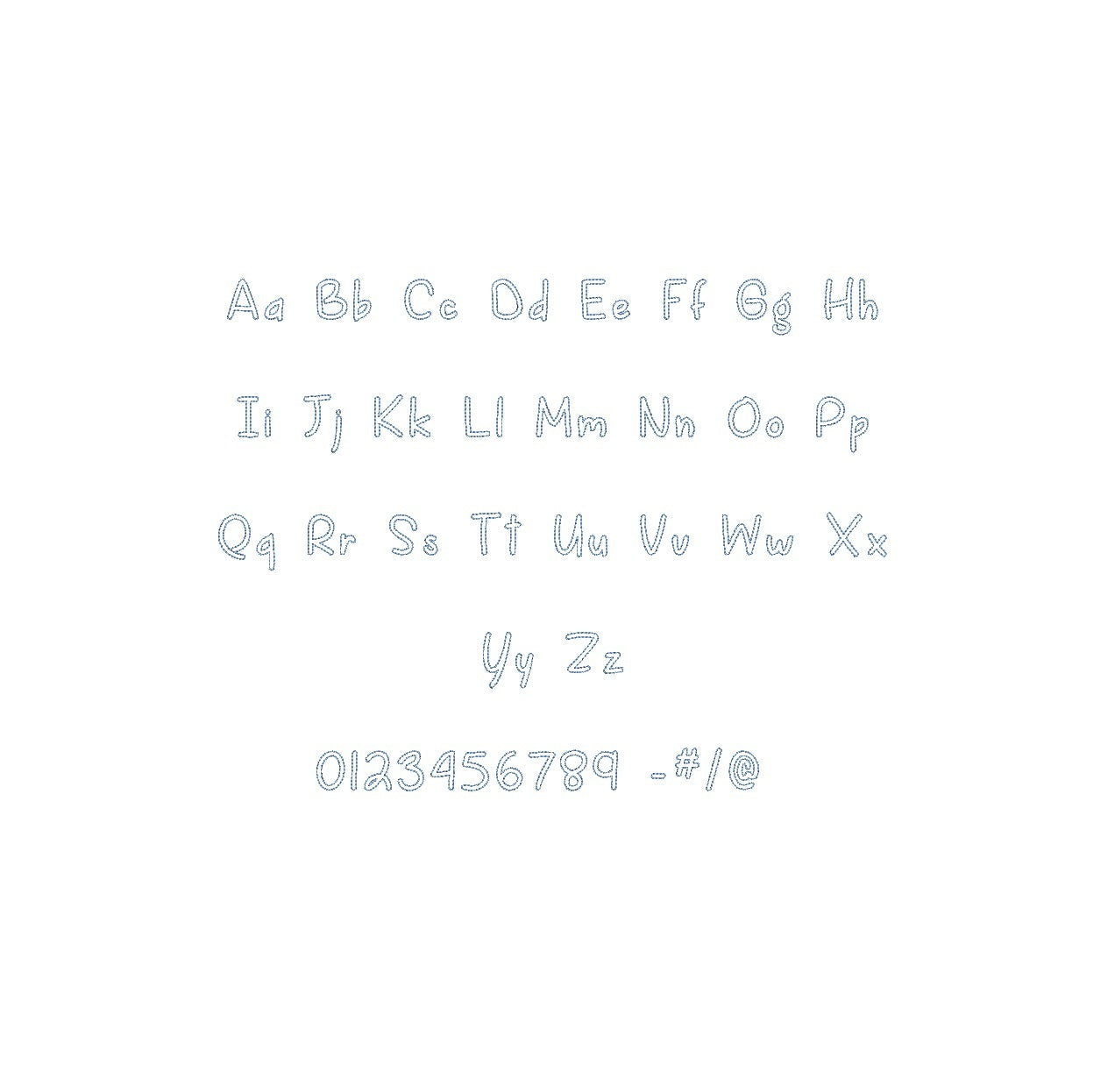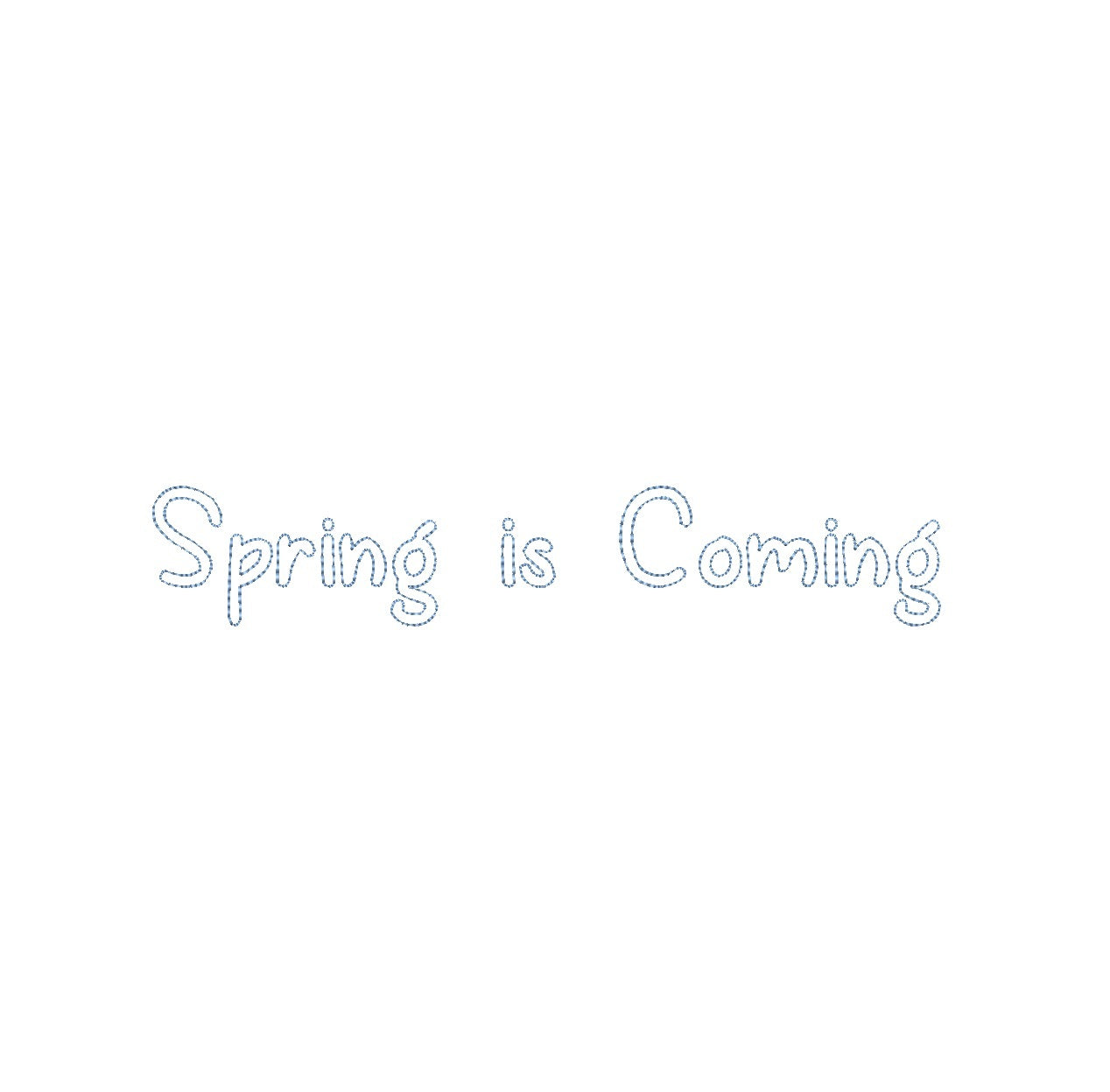
Elevate your embroidery projects with the Spring Is Coming Bean Outline ESA font, compatible with Wilcom Studio e4.5.6 and Hatch 3 versions and up. This font captures the essence of spring with its fresh and lively aesthetic, perfect for cheerful monograms and embellishments. Experience seamless compatibility for exceptional results and unleash a new level of stitching finesse. Transform your creations into embroidery masterpieces that radiate the vibrancy of the season. Elevate your projects with the Spring Is Coming Bean Outline ESA font and make your embroidery truly refreshing and captivating.